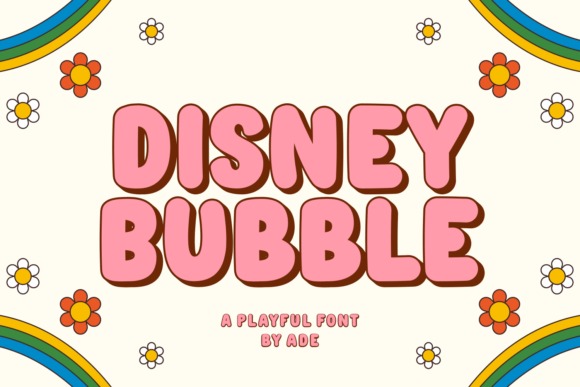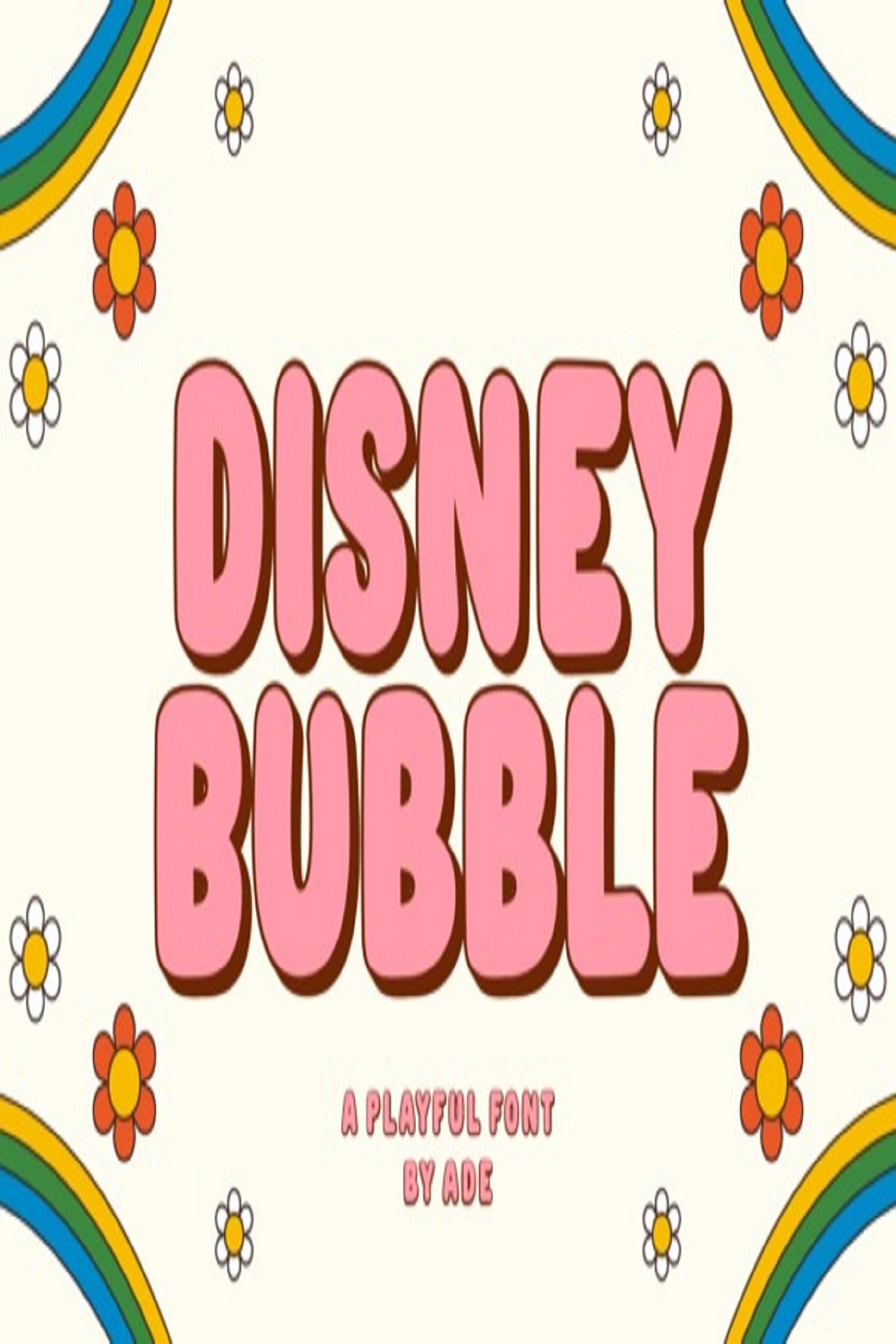
Disney Bubble Display Font” is a fun and cheerful typeface, with rounded corners that give it a friendly and fun feel. This font is designed to convey a cheerful and affectionate message, perfect for use on social media, invitations or other digital designs. With its expressive and colorful letter style, this font adds playfulness and warmth to the design, creating a unique and interesting impression.